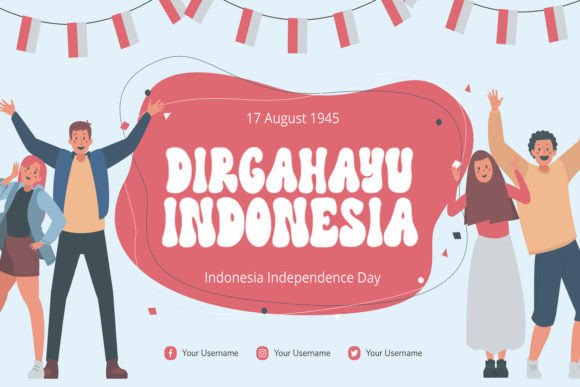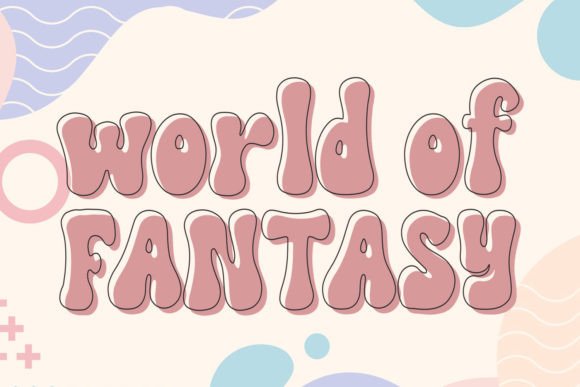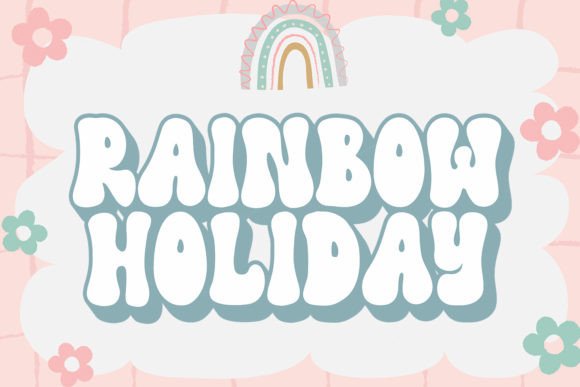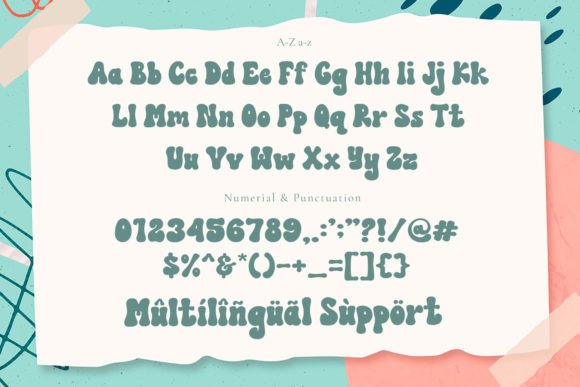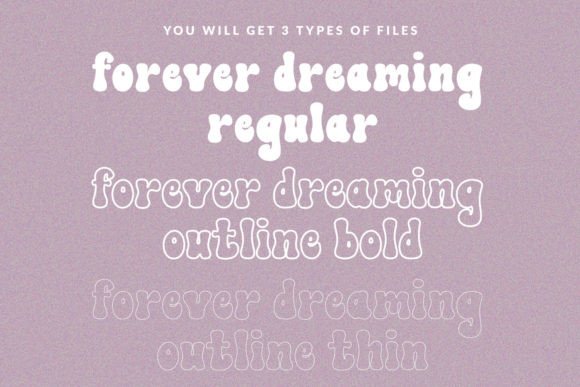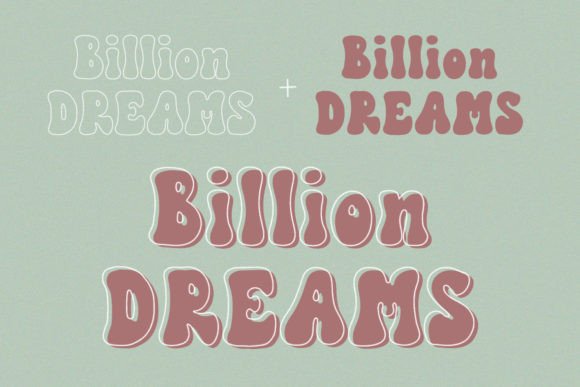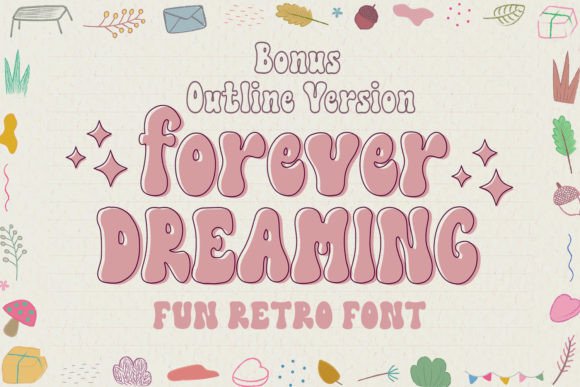
Introducing Forever Dreaming Font: The Ultimate Retro Display Font for Creative Projects
Are you a designer, crafter, or DIY enthusiast looking for a unique and playful font to add a touch of personality to your projects? Look no further than Forever Dreaming Font, a cute retro display font that’s perfect for creating eye-catching designs. With its groovy style, Forever Dreaming is ideal for a wide range of applications, from branding and posters to t-shirts, stickers, wall art, and beyond.
What Makes Forever Dreaming Font So Special?
Forever Dreaming Font is a one-of-a-kind typeface that’s sure to make your designs stand out from the crowd. Its retro vibe is reminiscent of the 1960s and 1970s, with a playful and carefree spirit that’s hard to resist. The font’s unique character set includes uppercase and lowercase letters, numbers, and special characters, making it versatile and easy to use.
Key Features of Forever Dreaming Font
- Cute and Playful Design: Forever Dreaming Font is designed to be fun and playful, making it perfect for projects that require a lighthearted touch.
- Retro Display Style: The font’s retro display style is perfect for creating eye-catching headlines, titles, and slogans.
- Groovy Aesthetic: The font’s groovy aesthetic is sure to evoke memories of the 1960s and 1970s, making it perfect for projects that require a vintage vibe.
- Versatile: The font can be used for a wide range of projects, from digital designs to print materials.
Uses for Forever Dreaming Font
Forever Dreaming Font is a versatile typeface that can be used for a wide range of projects, including:
- Branding: Use Forever Dreaming Font to create eye-catching logos, business cards, and marketing materials.
- Posters: Create stunning posters for events, promotions, or advertising campaigns.
- T-Shirts and Apparel: Use Forever Dreaming Font to create fun and playful designs for t-shirts, hoodies, and other apparel.
- Stickers and Labels: Create custom stickers and labels for products, packaging, or promotional materials.
- Wall Art: Use Forever Dreaming Font to create stunning wall art, quotes, and typographic prints.
Tips for Using Forever Dreaming Font
To get the most out of Forever Dreaming Font, here are a few tips to keep in mind:
- Experiment with Colors: Forever Dreaming Font looks great in a variety of colors, so don’t be afraid to experiment and find the perfect hue for your project.
- Play with Sizes: The font’s retro style looks great in a range of sizes, from small and subtle to large and bold.
- Combine with Other Fonts: Forever Dreaming Font pairs well with other fonts, so feel free to experiment with different combinations to create a unique look.
Forever Dreaming Font is a unique and playful typeface that’s perfect for designers, crafters, and DIY enthusiasts looking to add a touch of personality to their projects. With its retro display style, groovy aesthetic, and easy-to-use design, Forever Dreaming Font is sure to become a favorite in your font collection. So why wait? Download Forever Dreaming Font today and start creating stunning designs that will make your audience smile!